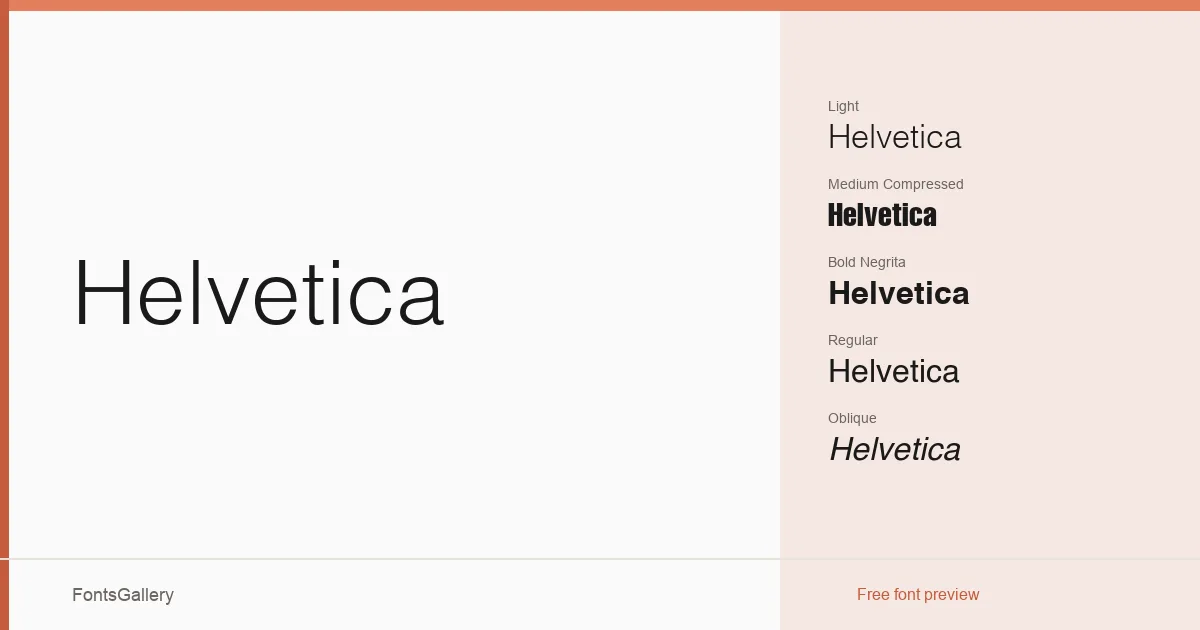
About Helvetica Font
Helvetica is a iconic sans serif typeface renowned for its clean lines, neutral character, and timeless appeal. It has earned a lasting reputation as one of the most widely recognized and widely used typefaces in the world of design. Its balanced proportions and refined simplicity make it a go-to choice for designers seeking clarity and impact.
Helvetica's letterforms embody a bold, modern, and professional aesthetic, characterized by uniform stroke weights, tight apertures, and a geometric yet humanist structure. The typeface's clean, upright characters project confidence and authority, making each letter immediately legible and visually commanding. Its neutral tone allows it to adapt effortlessly across a wide range of design contexts without losing its distinctive modern character.
Helvetica excels in high-impact applications such as posters, advertisements, headlines, branding systems, and business cards, where professionalism and clarity are paramount. Its bold presence ensures strong visual hierarchy in both large-format print and compact layouts alike. For complementary pairings, consider combining Helvetica with Aresink or Ballmain to create compelling typographic contrast.